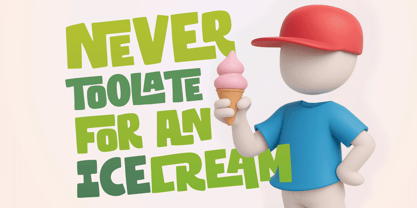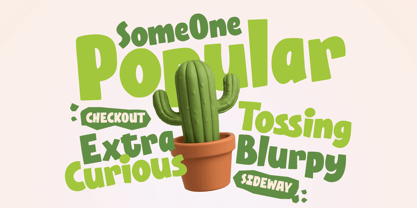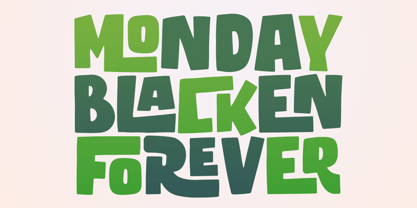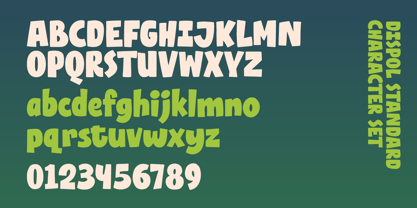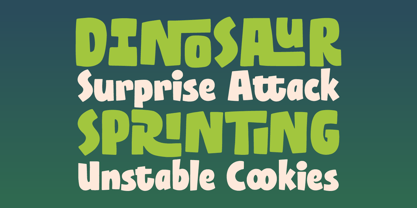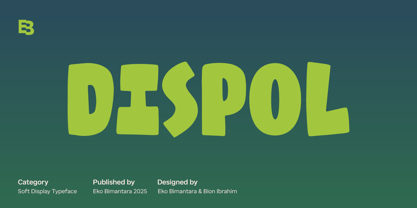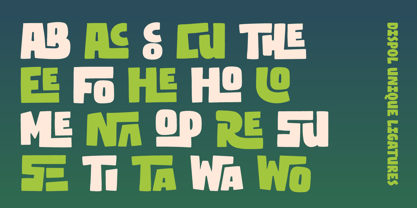
Dispol
by Eko Bimantara
The Dispol Font Family was designed by Eko Bimantara, Biyono Ibrahim and published by Eko Bimantara. Dispol contains 1 styles. More about this family
Dispol is a soft, fun display font designed to bring a friendly and approachable character to any project. Its unique letterforms and playful curves create a warm visual personality, making it stand out in both digital and print applications. One of its key features is the extensive collection of engaging ligatures that add a dynamic and expressive touch to your typography. Ideal for large display titles, Dispol shines in designs related to food, children’s themes, and other cheerful concepts, offering a delightful balance of creativity and readability.
Eko Bimantara is a type designer from Indonesia. Always has an intention to creating fonts that not only look great but also perform across a wide range of mediums and also across wide range of theme. The goal is to give designers the tools to make their projects that speaks a lot with various expression. Eko Bimantara’s fonts are featured in everything from corporate identities to street art posters, and have numerous ideas and concept ready to expand for fresh fonts for years further.